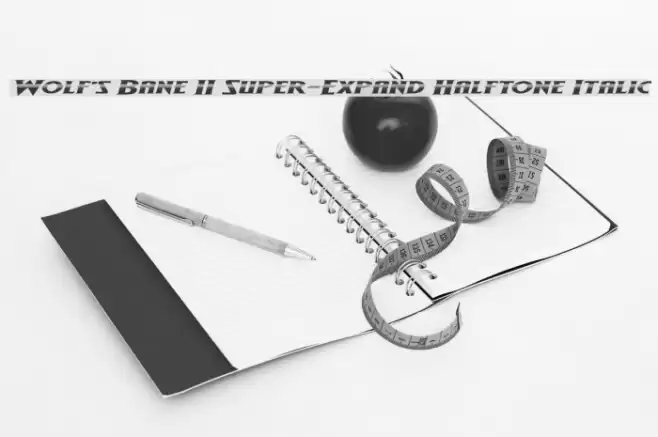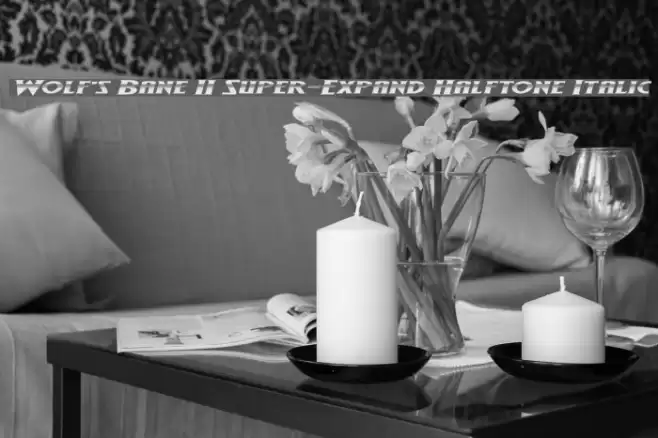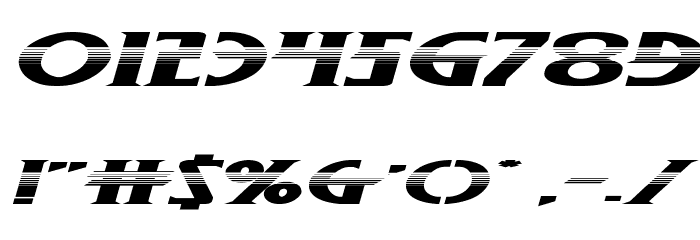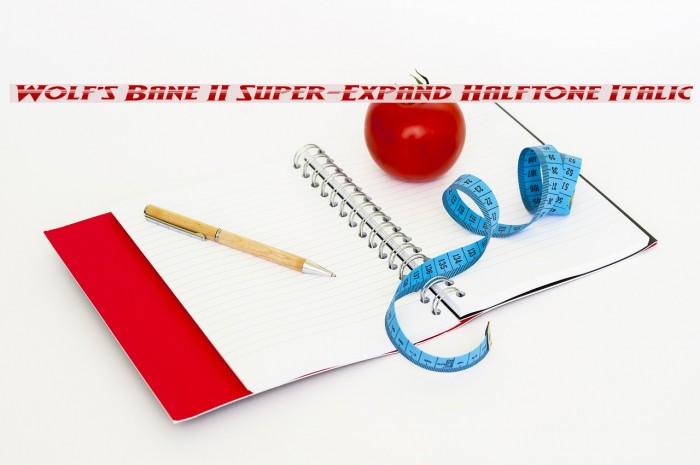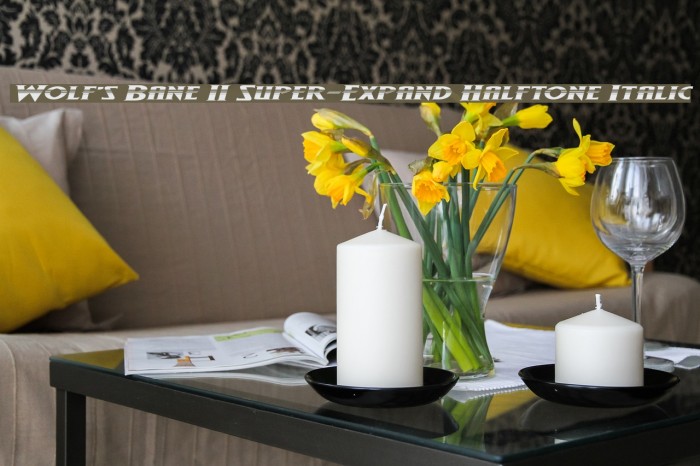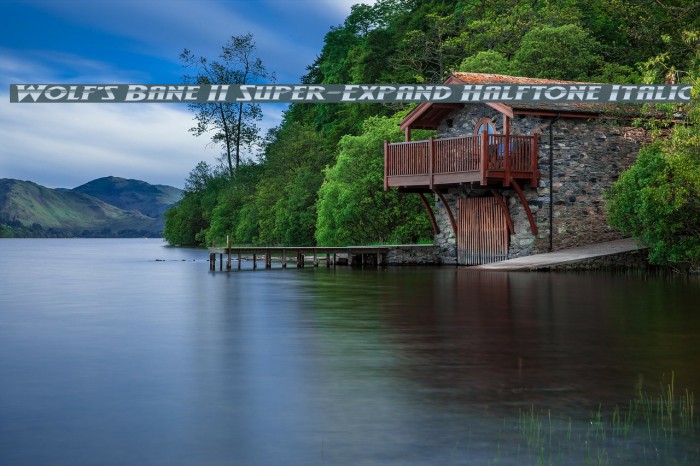
Wolf's Bane II Super-Expand Halftone Italic Font
Wolf's Bane II Super-Expand Halftone Italic Description
This font features a bold and dynamic style with a distinct halftone effect that gives it a sense of motion and energy. The characters are italicized, adding to the overall dynamic appearance. The horizontal lines create a unique texture, making it stand out as a display font. The uppercase and lowercase letters maintain a consistent style, with sharp angles and a futuristic feel. The numbers and special characters are equally stylized, ensuring a cohesive look across all elements.
A bold, italicized display font with a halftone effect and dynamic style from Uncategorized fonts.
- Proposed Projects: Ideal for projects that require a bold and energetic look, such as sports branding, music album covers, or modern posters.
- Width: Expanded